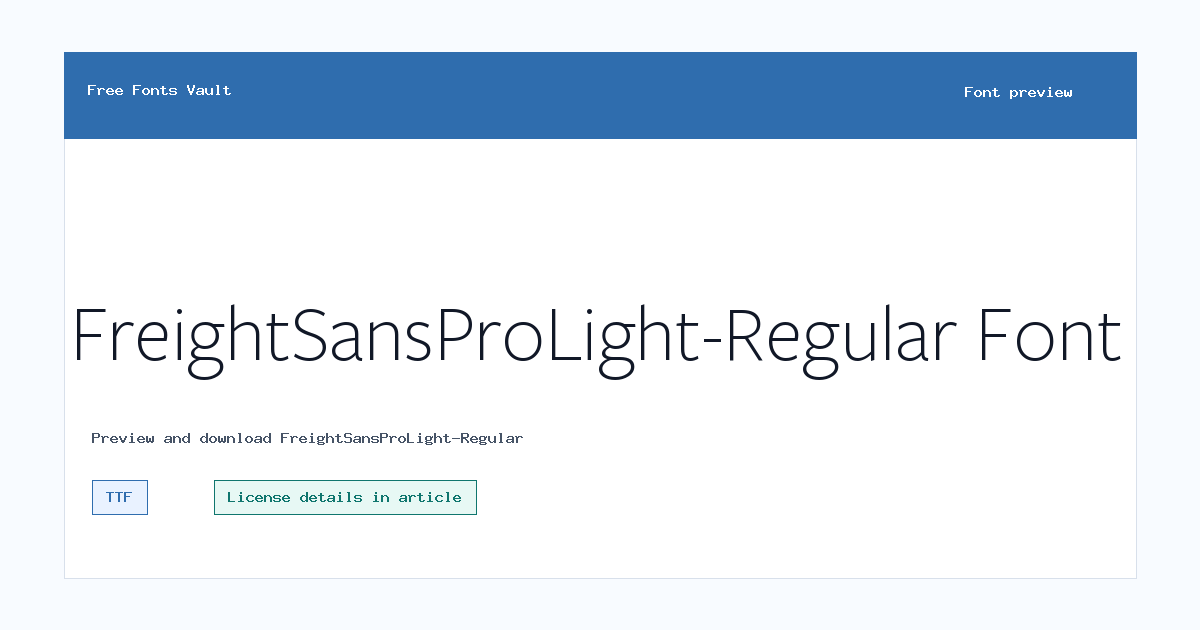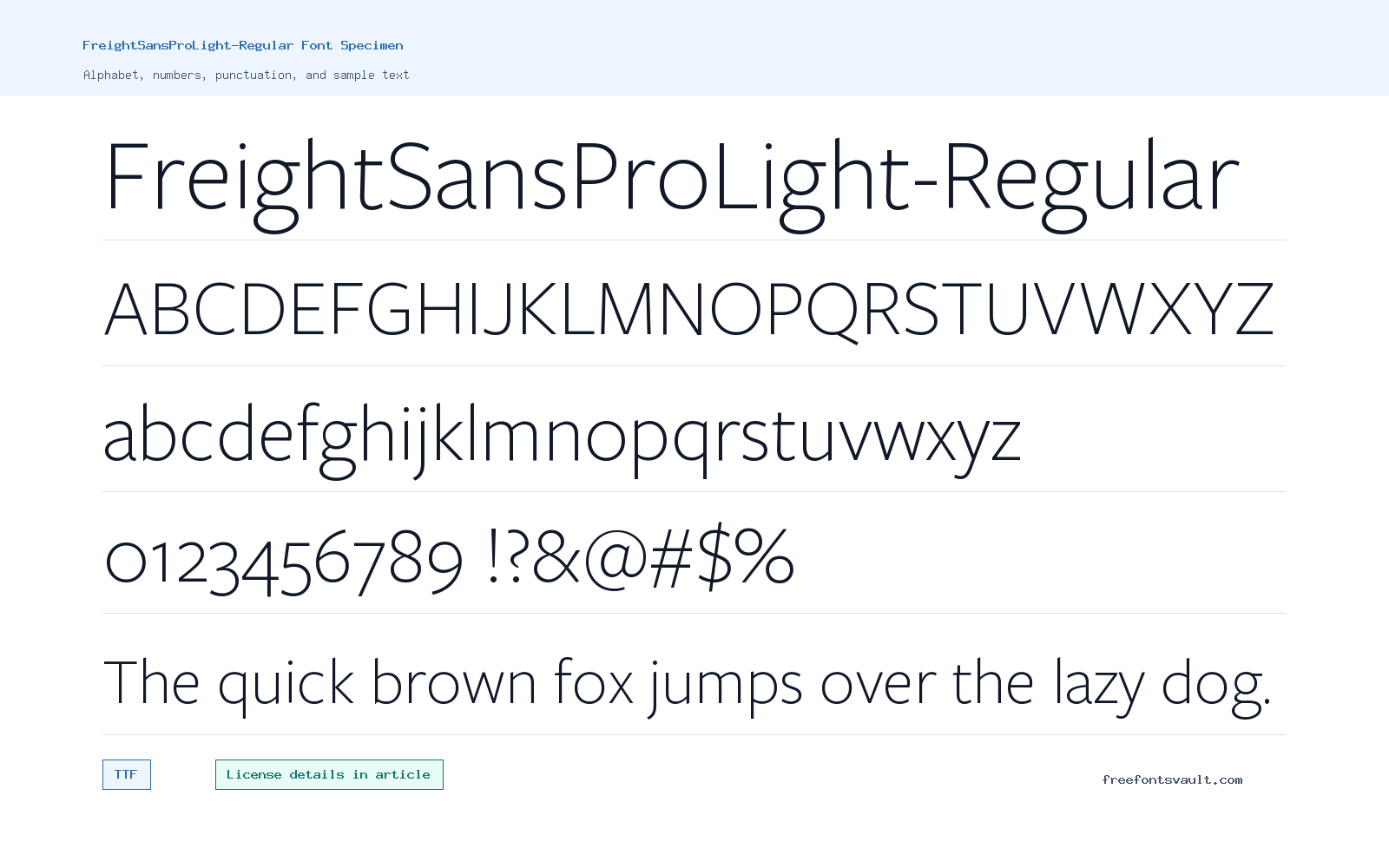
FreightSansProLight-Regular
- Designer Joshua Darden
- Foundry Joshua Darden & Phil's Fonts, Inc
FreightSansProLight-Regular font.
FreightSansProLight-Regular is a light-weight sans serif font file for clean, quiet typography. Use the preview to test your own words before downloading, especially if you plan to use it at small sizes.
About FreightSansProLight-Regular
FreightSansProLight-Regular is available as a TrueType font with a normal style and 300 weight. That makes it a lighter option than regular body text weights, so it works best when the design needs a softer, less heavy voice. In headings, short labels, menus, quote lines, and simple display text, the lighter weight can feel neat and controlled without taking over the layout.
Because this is a light cut, test it carefully before using it for long paragraphs. Thin strokes can lose strength on low-resolution screens, in small print, or over busy backgrounds. Try previewing uppercase, lowercase, numbers, punctuation, and the exact words you plan to use. If the text feels too delicate, pair it with a stronger sans serif weight for body copy, navigation, or calls to action.
For web-style mockups, preview this light face on both white and dark backgrounds. A light sans can look elegant in a large hero line but become faint in navigation, form labels, or mobile captions, so test contrast before finalizing colors.
Check it on real devices if the design will appear online, because light weights can render differently across browsers and screens.
- Light 300-weight style suited to clean headings, labels, and short text
- Minimal headings, section titles, captions, and interface-style labels
- Posters, editorial layouts, landing page text, and refined branding mockups where a lighter sans serif is needed
Designer: Joshua Darden. Foundry information is listed as Joshua Darden & Phil's Fonts, Inc.
For best results, start with medium-to-large sizes and plenty of contrast. Avoid using this light weight over images or textured backgrounds unless the preview stays easy to read. It can pair well with a heavier sans serif for body copy or buttons, but keep spacing and hierarchy clear so the light style does not disappear. If the page needs accessibility-friendly small text, reserve the light weight for headings or short accent lines and use a stronger weight for important instructions.
What weight is this font?
It is listed as weight 300, which is commonly treated as a light weight.
Is this a good font for long body text?
Use caution. A light 300-weight font can be harder to read in long paragraphs or small sizes, so test it in the preview first.
Who designed FreightSansProLight-Regular?
The designer is listed as Joshua Darden.